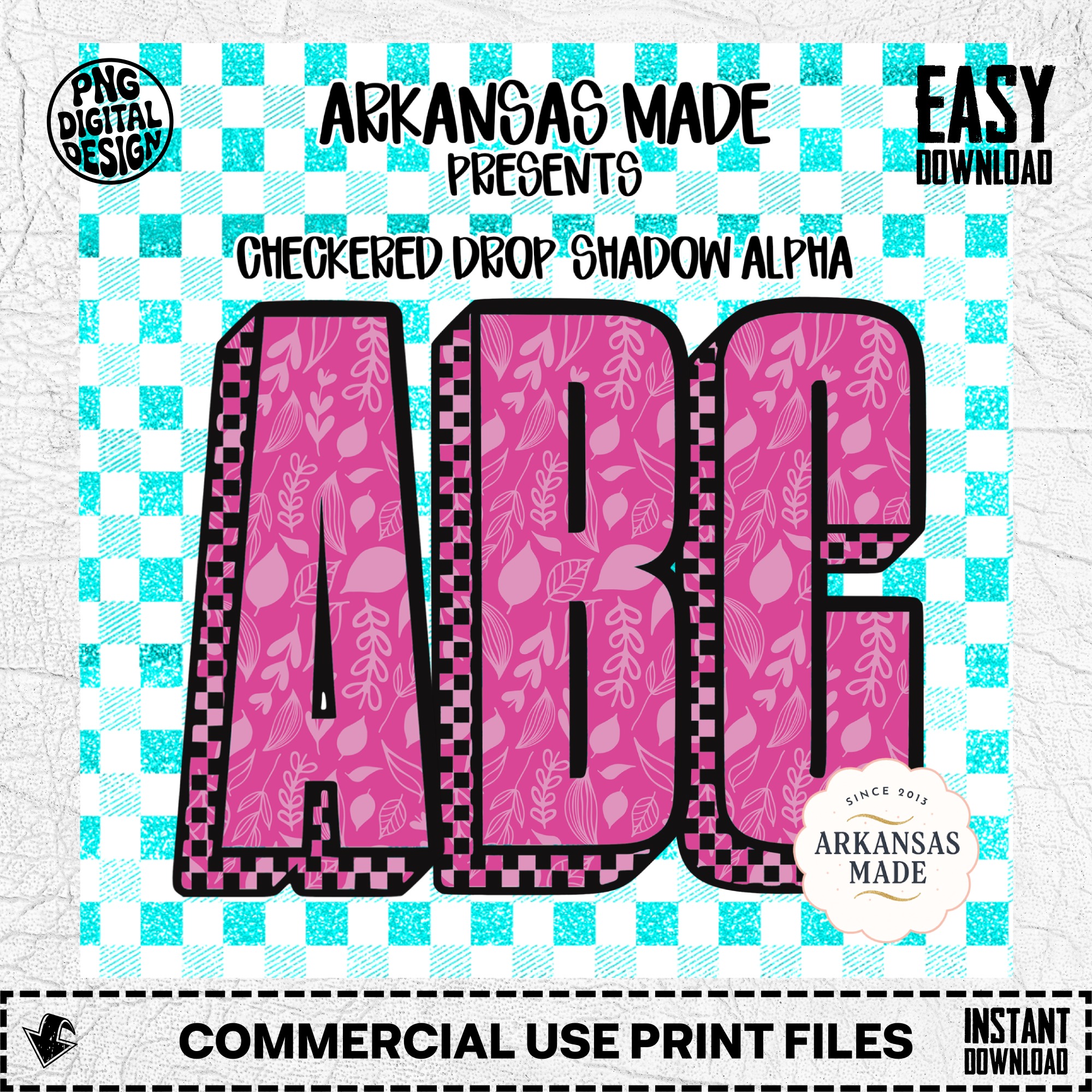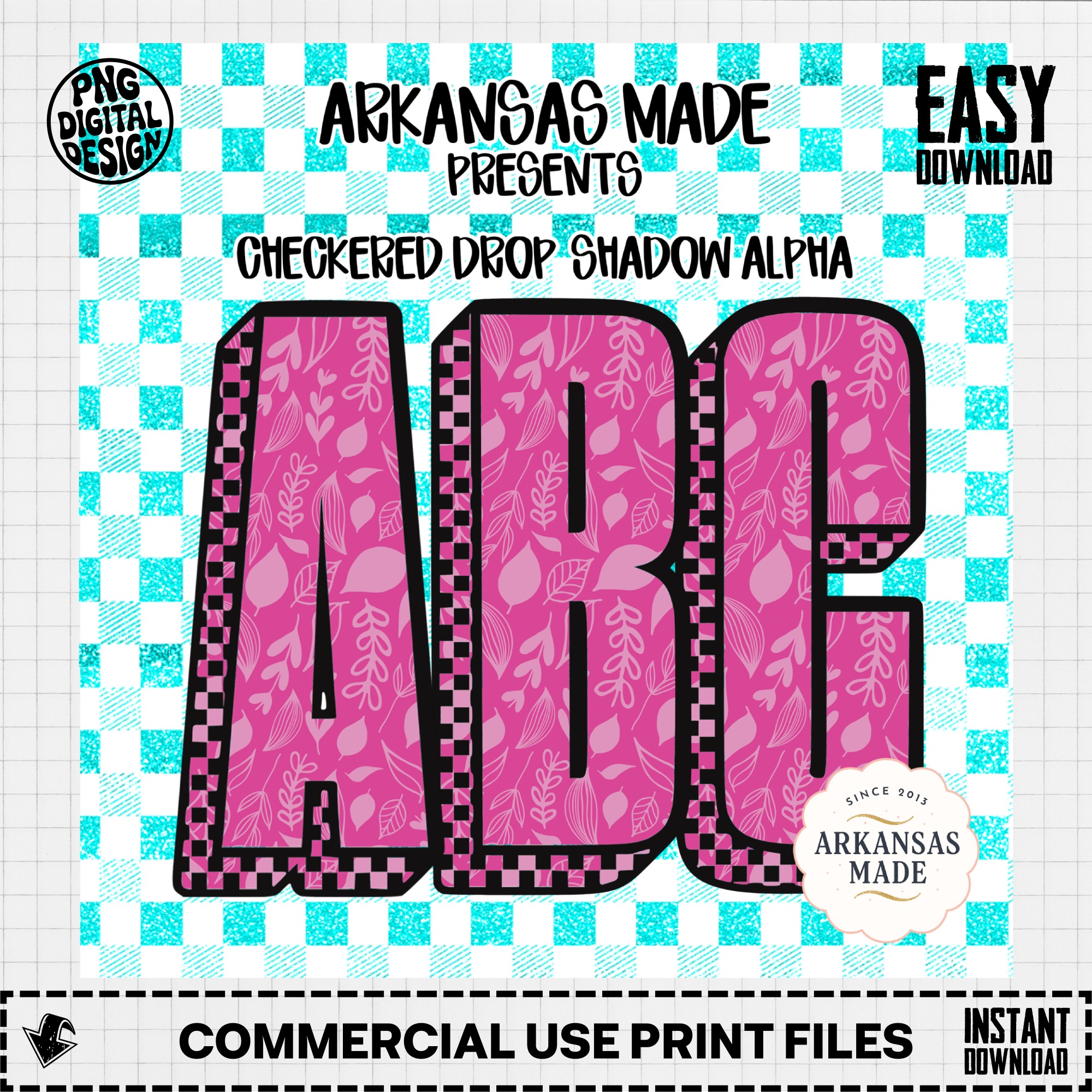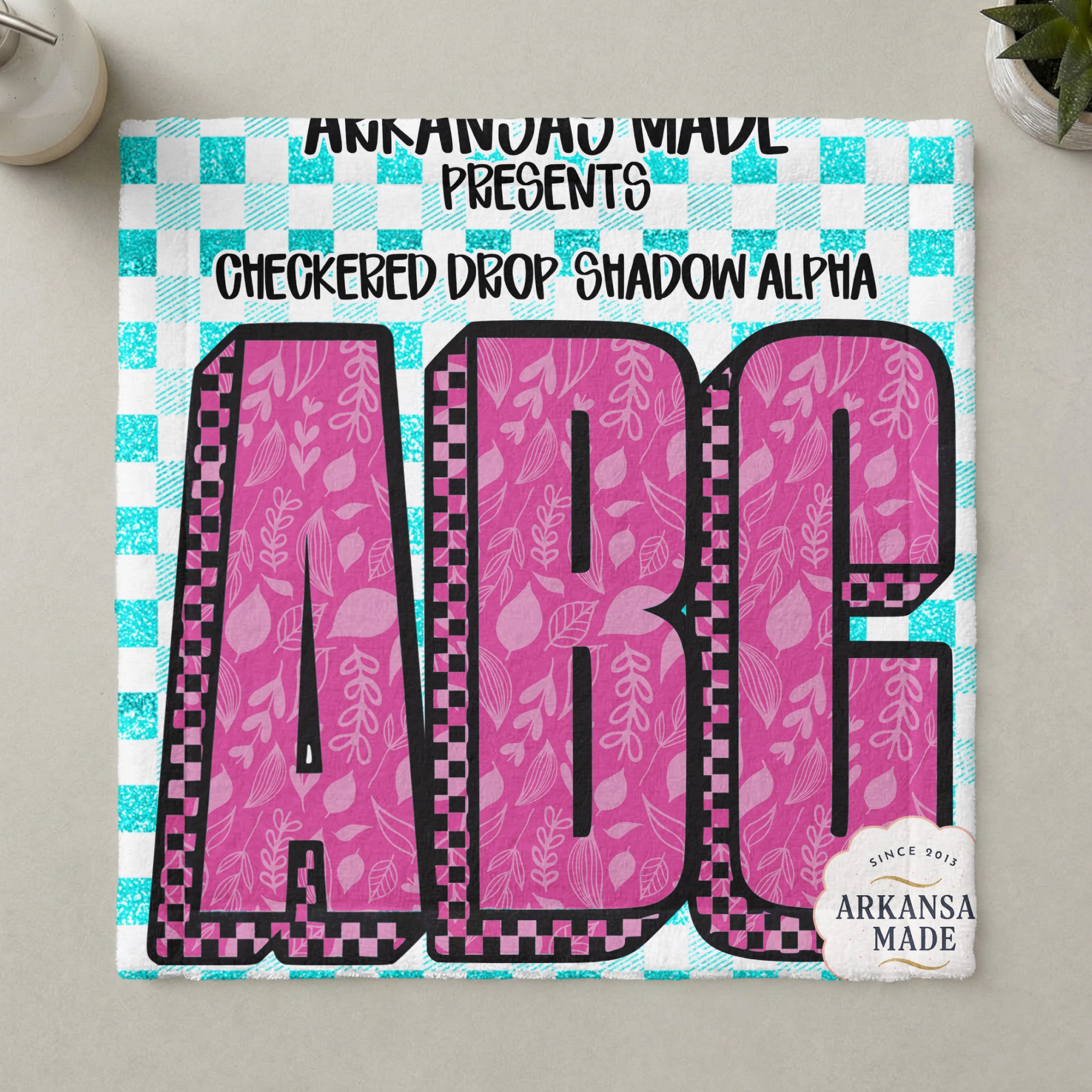
Digital Alpha Set Pink Floral Checkered Letters PNG | Teal Glitter Drop Shadow Alphabet Bundle | Y2K Retro Font Sublimation Crafts
Unleash creativity with this vibrant Digital Alpha Set featuring pink floral checkered letters and a playful teal glitter drop shadow alphabet PNG. Perfect for adding a bold, retro Y2K flair to all your projects! This trendy alphabet bundle is ideal for sublimation, junk journaling, personalized gifts, nursery decor, and unique craft supplies. Bring a whimsical touch to any design, from party invitations to custom apparel.